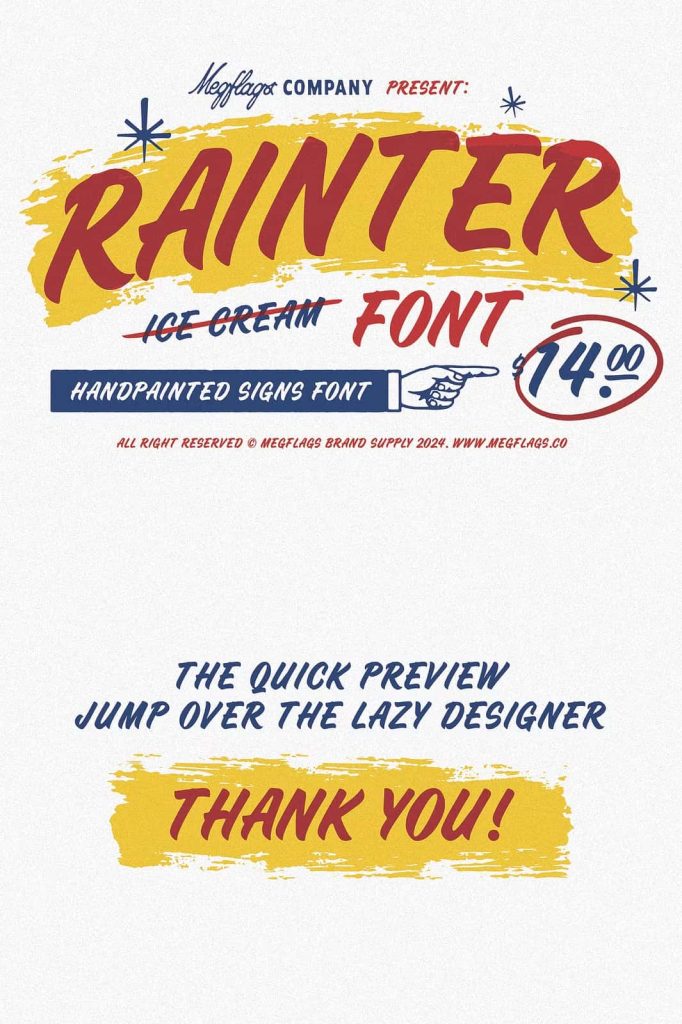
Rainter Sign Painter Font
Rainter Sign Painter Font is a handcrafted display typeface inspired by the timeless artistry of traditional sign painting. Designed to capture the charm, personality, and craftsmanship of hand-painted lettering, this font brings an authentic vintage feel to modern creative projects. Every character reflects the expressive strokes and natural flow found in classic storefront signs, hand-painted advertisements, and custom lettering created by skilled sign painters.
Whether you are developing a memorable brand identity, creating eye-catching posters, designing product packaging, or crafting unique social media graphics, Rainter Sign Painter Font gives your typography a distinctive handcrafted appearance. Its artistic letterforms help your work stand out while maintaining excellent readability and visual balance.
Inspired by the Art of Traditional Sign Painting
Before digital typography became the standard, talented sign painters created beautiful lettering by hand for shops, restaurants, cafés, theaters, and local businesses. Rainter Sign Painter Font pays tribute to this rich artistic tradition by recreating the organic movement and confident brushwork that made hand-painted signs so memorable.
Instead of relying on perfectly mechanical shapes, this font embraces subtle variations and handcrafted details that make every word feel authentic. These characteristics give designers the ability to create projects that communicate warmth, creativity, and originality while preserving the classic charm of traditional sign painting.
Authentic Handcrafted Character
One of the greatest strengths of Rainter Sign Painter Font is its genuine handcrafted personality. Every letter features carefully designed curves, balanced proportions, and expressive strokes that imitate the natural rhythm of brush lettering. This handcrafted quality helps your typography feel more personal and engaging than standard digital fonts.
The font creates an inviting visual style that works beautifully across both vintage-inspired and contemporary designs. Whether used for large headlines or decorative titles, Rainter consistently delivers a professional yet artistic appearance.
Perfect for a Wide Variety of Design Projects
Thanks to its versatile handcrafted style, Rainter Sign Painter Font adapts easily to numerous creative applications. Its expressive letterforms make it suitable for designers working across branding, print, digital media, and merchandise.
Logo Design and Branding
Create memorable logos and visual identities that reflect craftsmanship, authenticity, and creativity. Rainter is an excellent choice for cafés, restaurants, coffee shops, breweries, barbershops, artisan businesses, vintage stores, and lifestyle brands.
Posters and Advertising
Design bold promotional materials, event posters, concert flyers, banners, and advertising campaigns that immediately attract attention. The handcrafted appearance adds personality while maintaining clear readability.
Packaging Design
Give your product packaging a distinctive handcrafted touch. Rainter works beautifully on labels for food products, beverages, cosmetics, handmade goods, candles, clothing, and premium gift collections.
Apparel and Merchandise
Create stylish typography for T-shirts, hoodies, hats, tote bags, stickers, and promotional merchandise. The vintage-inspired lettering helps products feel unique and professionally designed.
Social Media and Digital Content
Produce engaging social media graphics, promotional posts, YouTube thumbnails, website banners, and digital advertisements with typography that instantly captures attention.
Create Vintage Style with Modern Flexibility
Although Rainter Sign Painter Font draws inspiration from traditional craftsmanship, it performs exceptionally well in modern design environments. Designers can combine it with minimalist layouts, contemporary color palettes, and clean graphic elements to create fresh visual identities that retain handcrafted authenticity.
This combination of vintage inspiration and modern usability makes Rainter suitable for businesses that want to express tradition while remaining relevant to today’s audiences.
Excellent Readability for Display Typography
Display fonts should be visually striking without sacrificing readability. Rainter achieves this balance by maintaining clear letter construction while preserving its expressive handcrafted appearance. Headlines remain bold and attractive, while short phrases, logos, and promotional text stay easy to read across print and digital formats.
This dependable readability makes the font suitable for everything from storefront signage and product packaging to websites and marketing materials.
Why Choose Rainter Sign Painter Font?
Rainter Sign Painter Font offers far more than decorative lettering. It captures the authentic spirit of traditional sign painting while providing the consistency and convenience of a professional digital typeface. Its handcrafted details, expressive brush-inspired forms, and timeless vintage character help designers create typography that feels personal, creative, and memorable.
If you are searching for a display font that celebrates the beauty of handcrafted lettering and delivers lasting visual impact, Rainter Sign Painter Font is an outstanding choice. Combining classic sign-painting inspiration with modern versatility, it gives every project a unique voice that reflects creativity, craftsmanship, and timeless design.